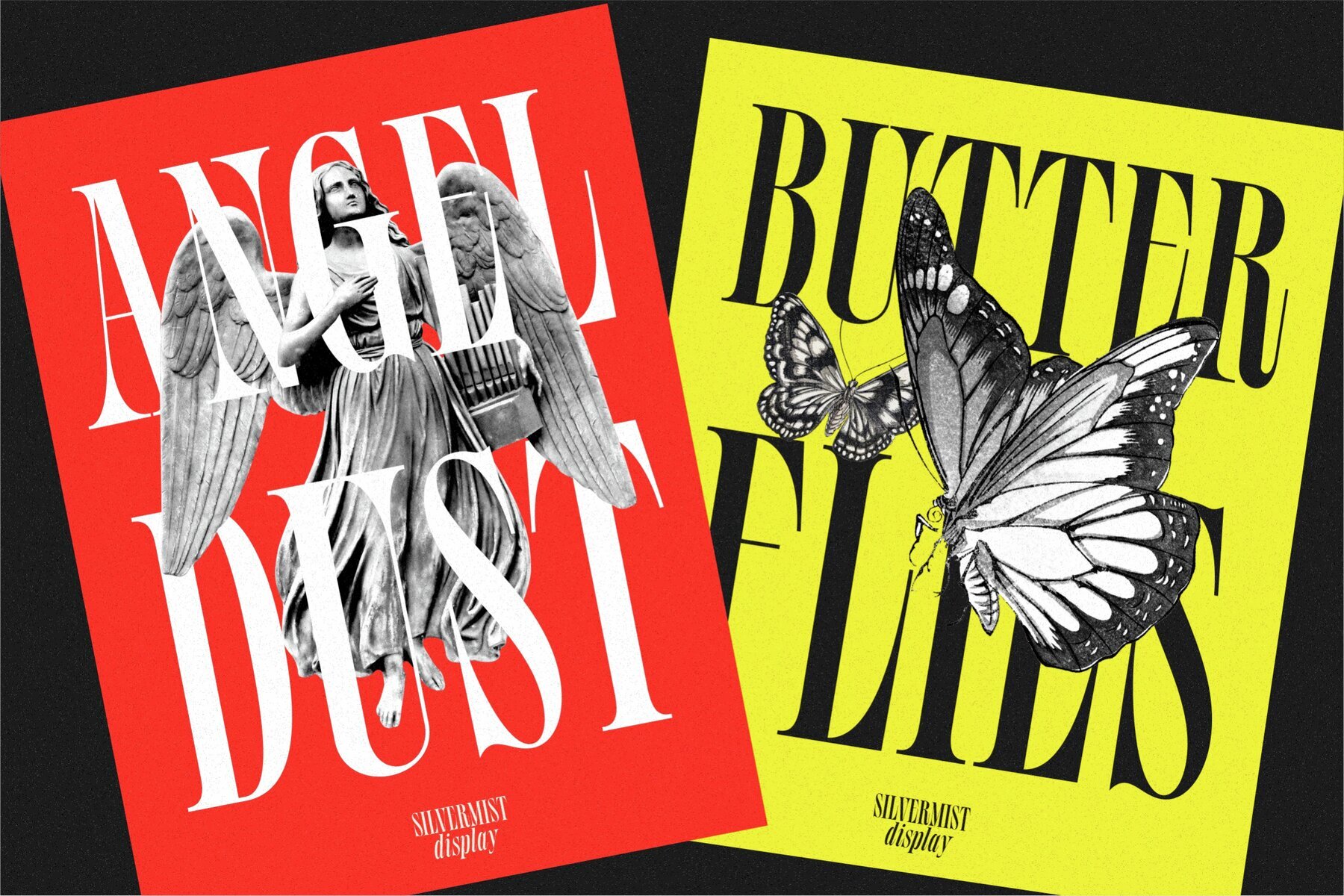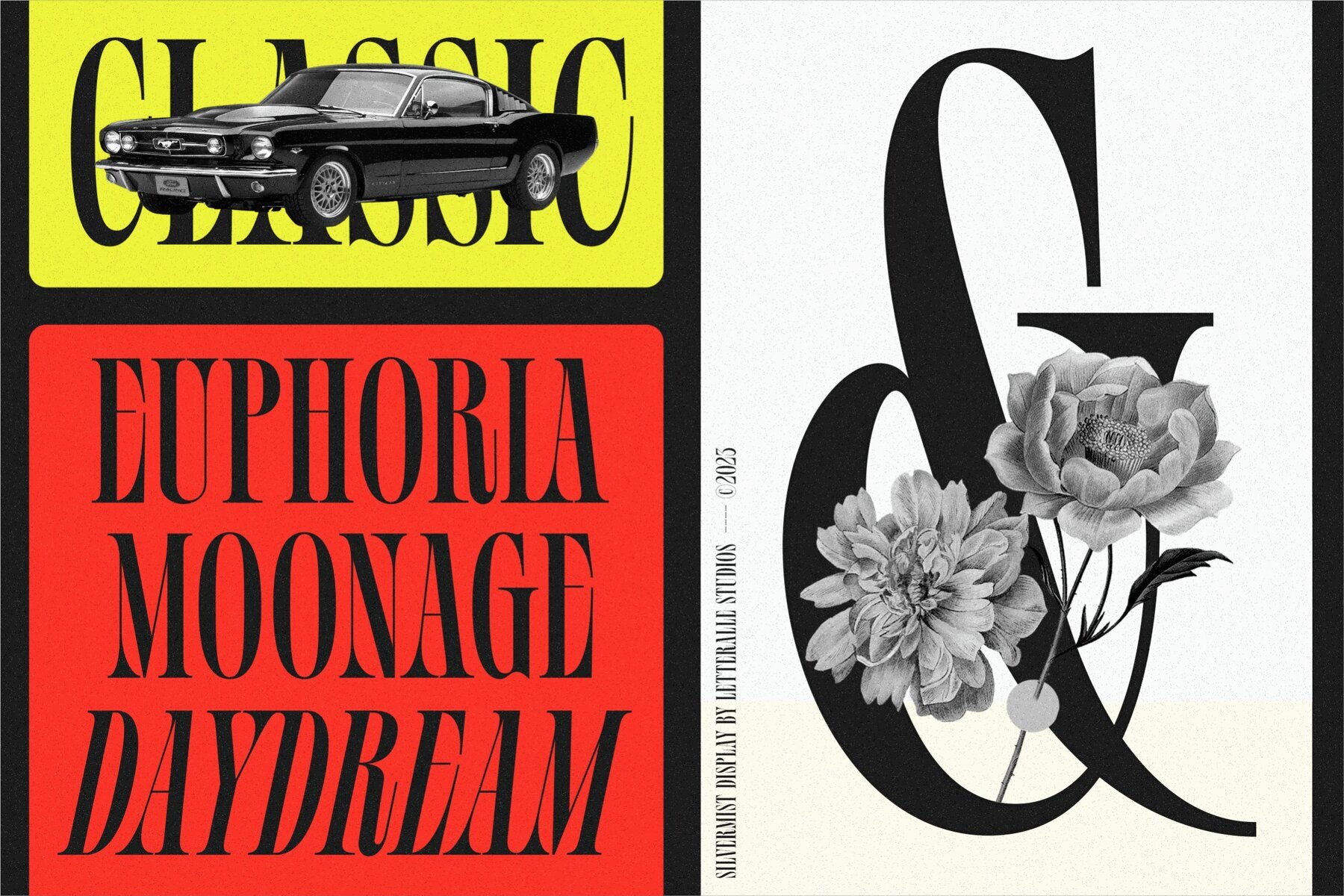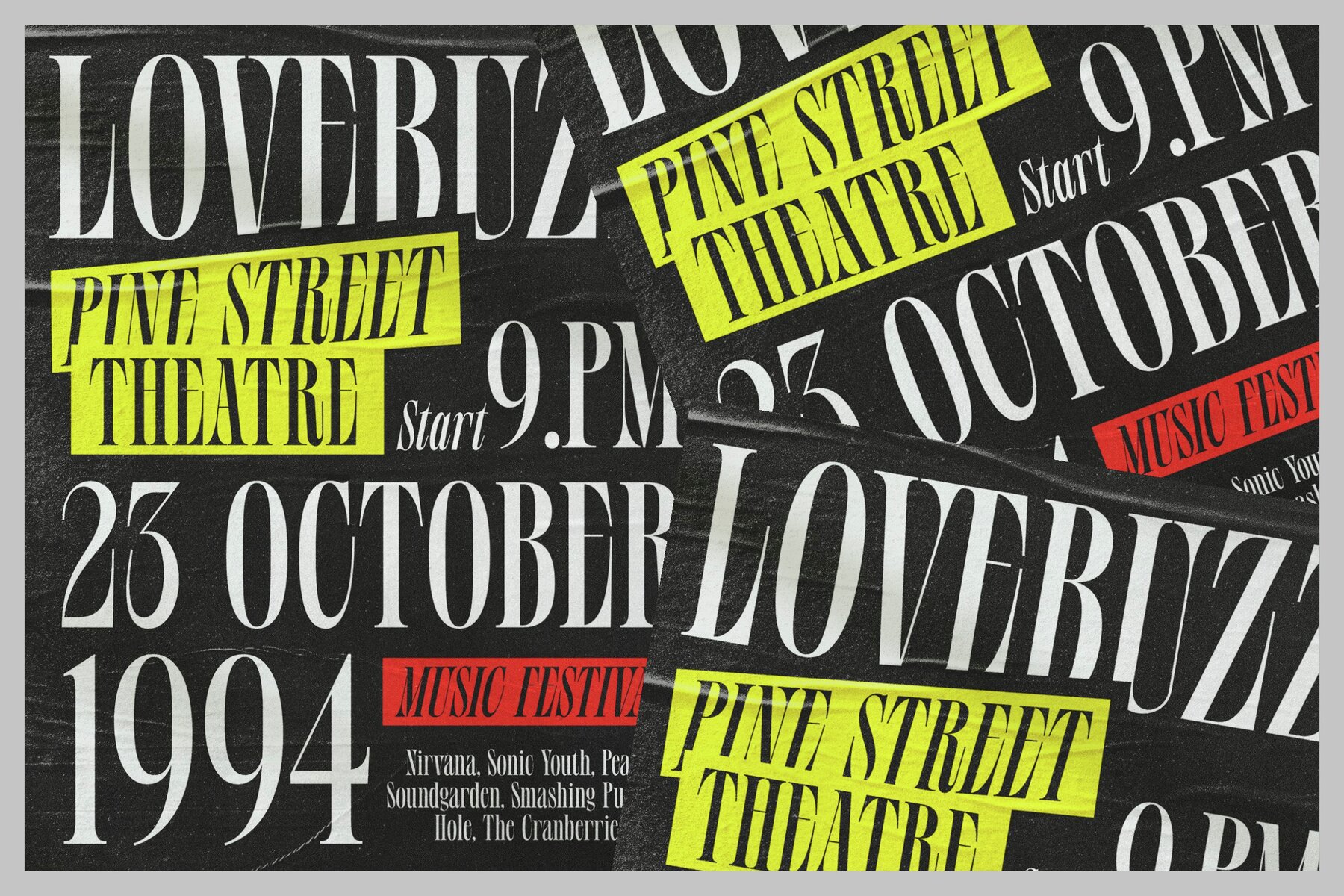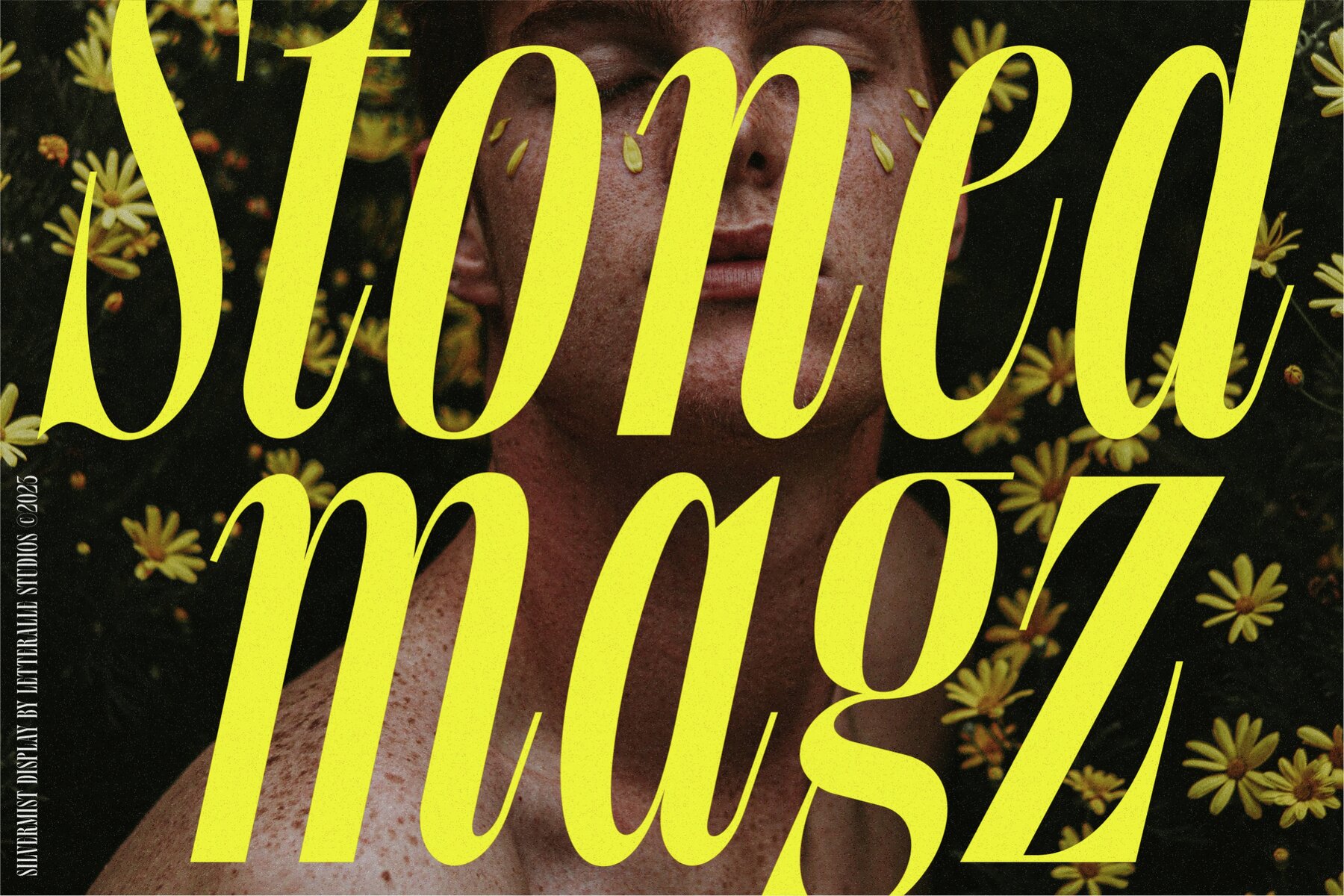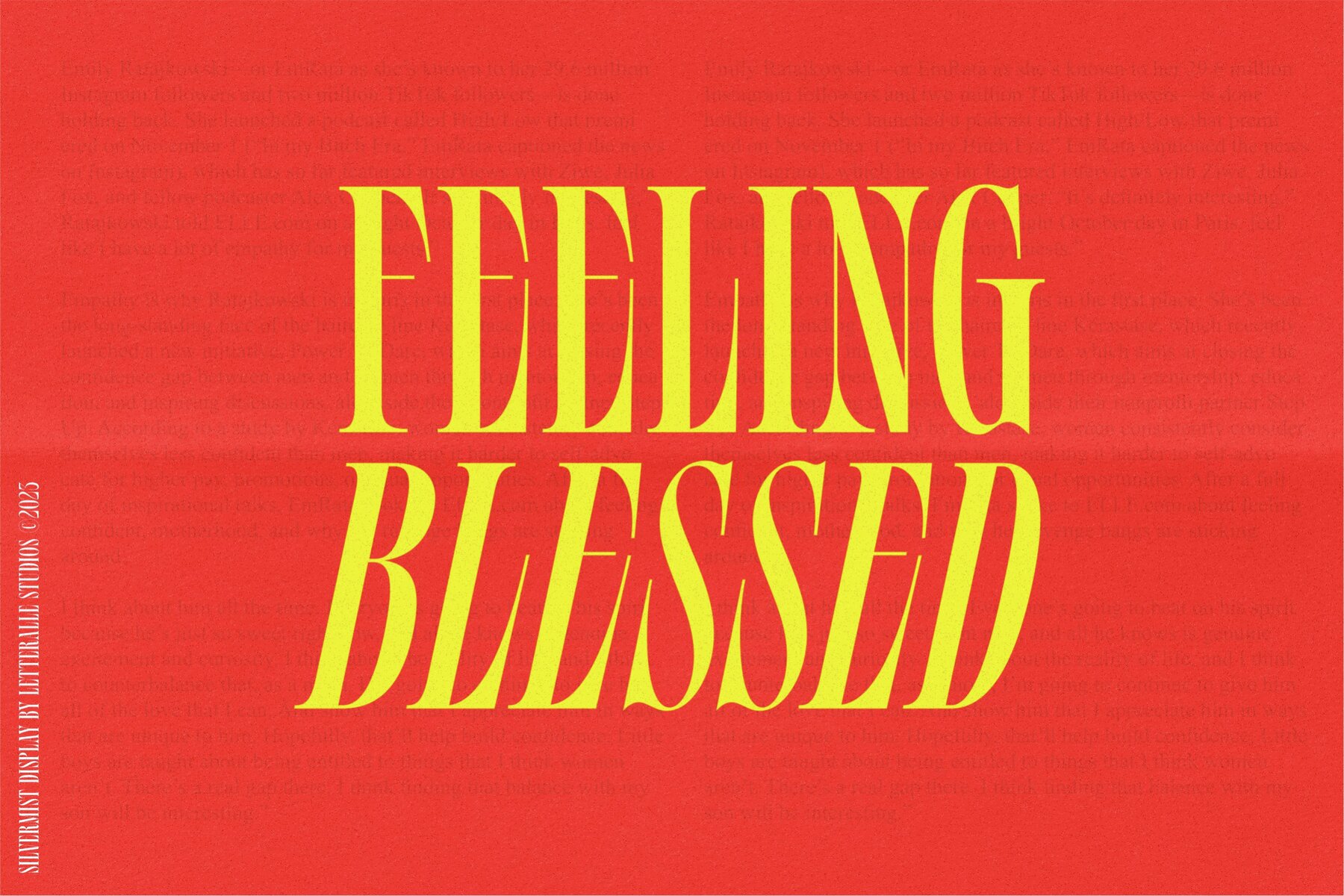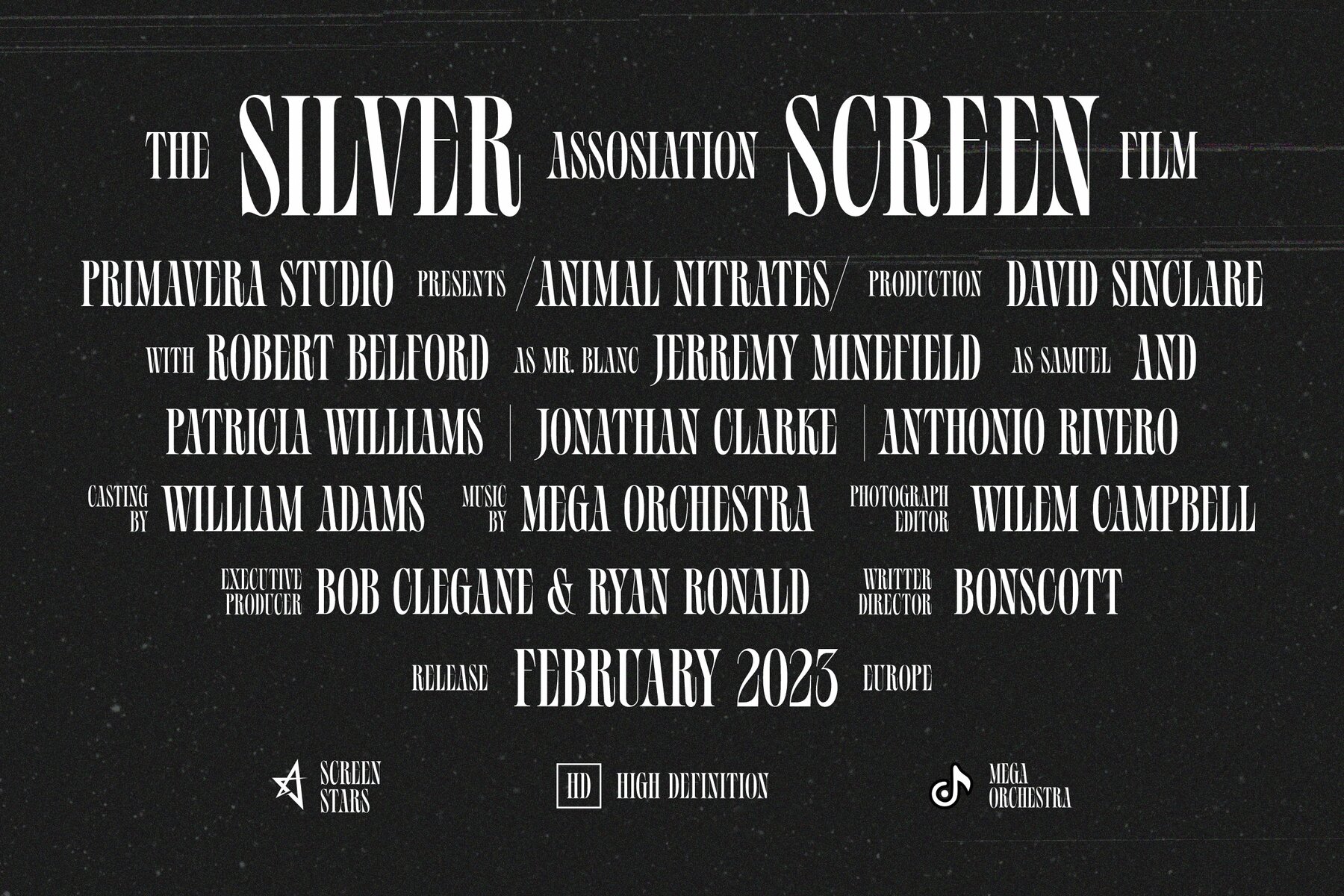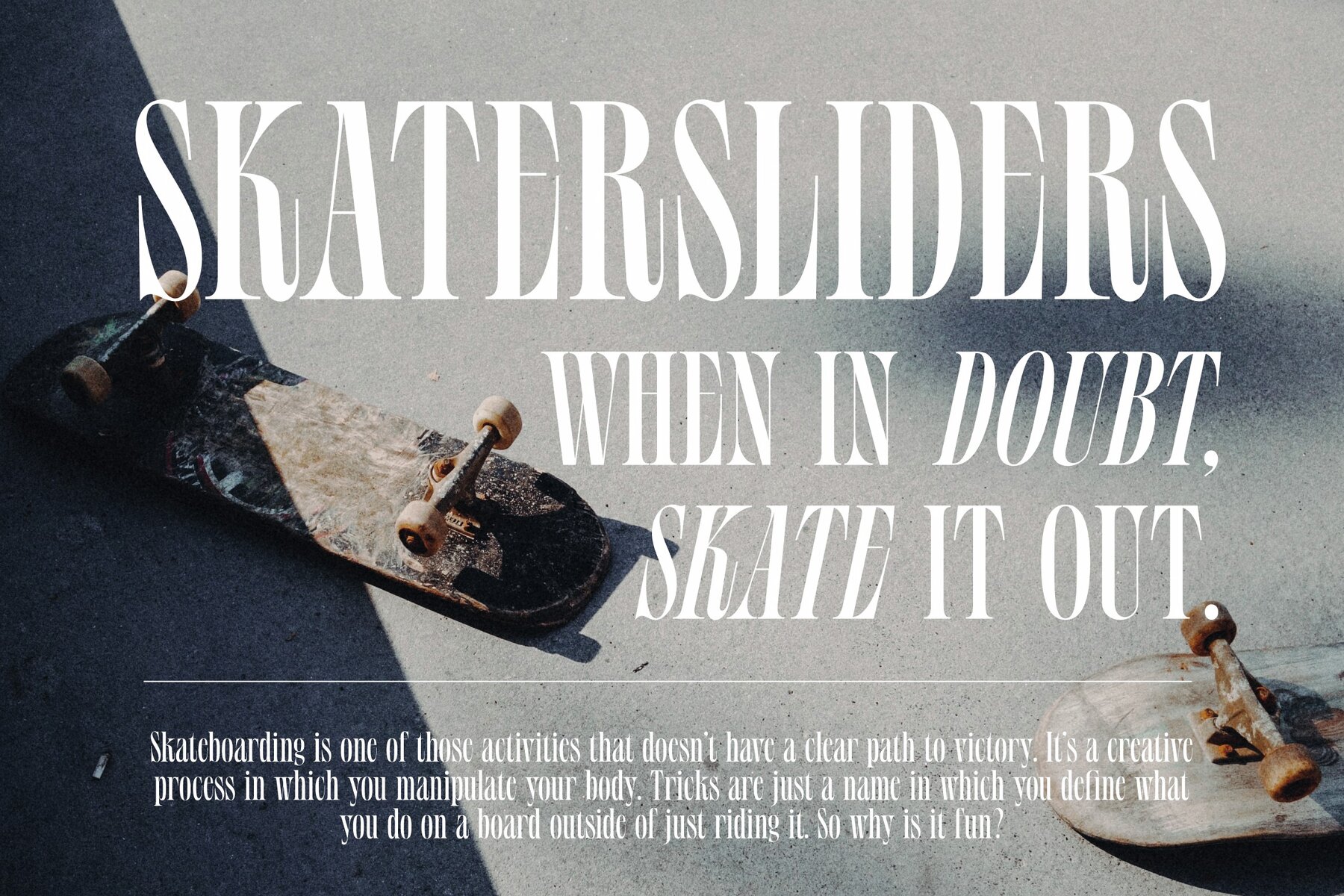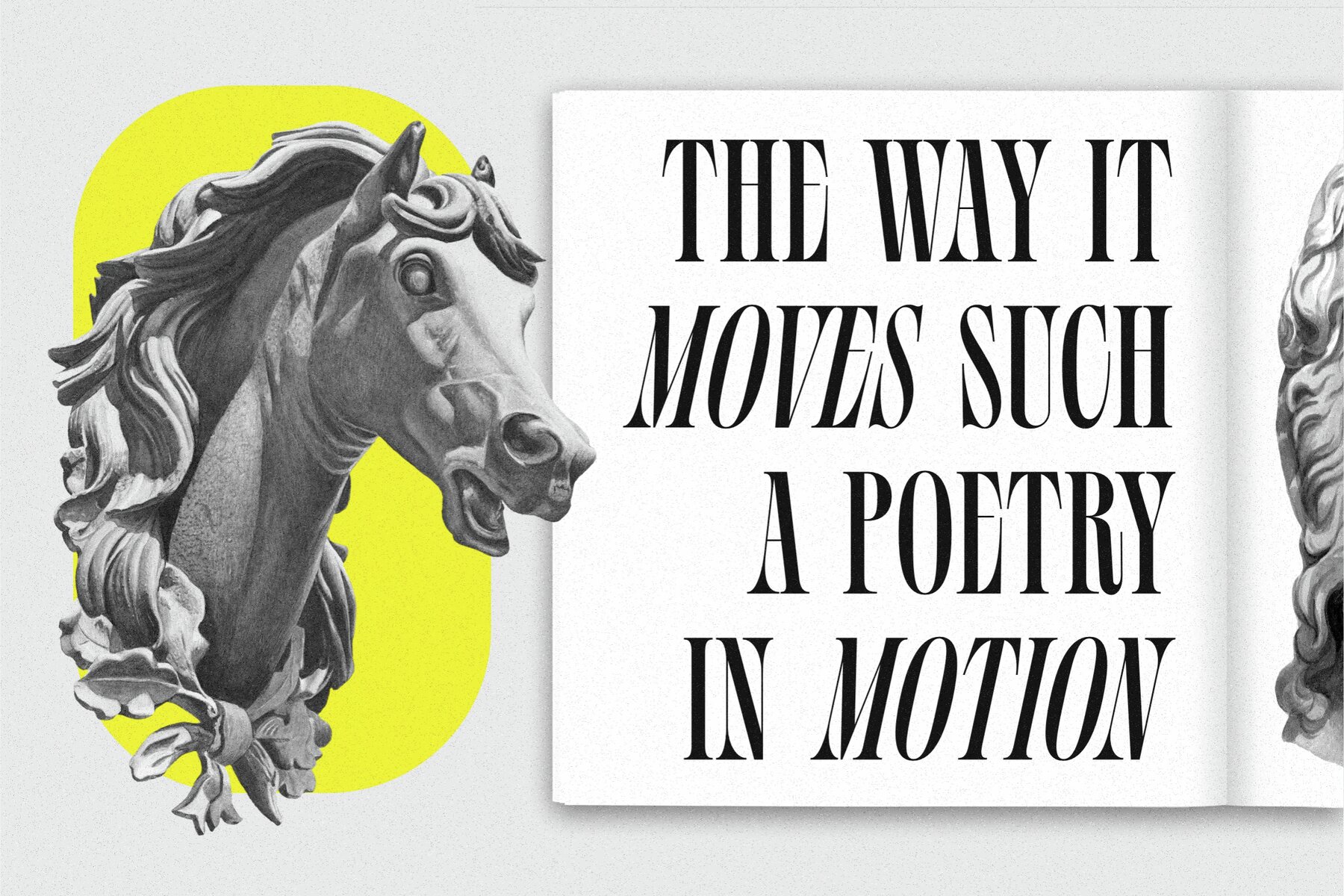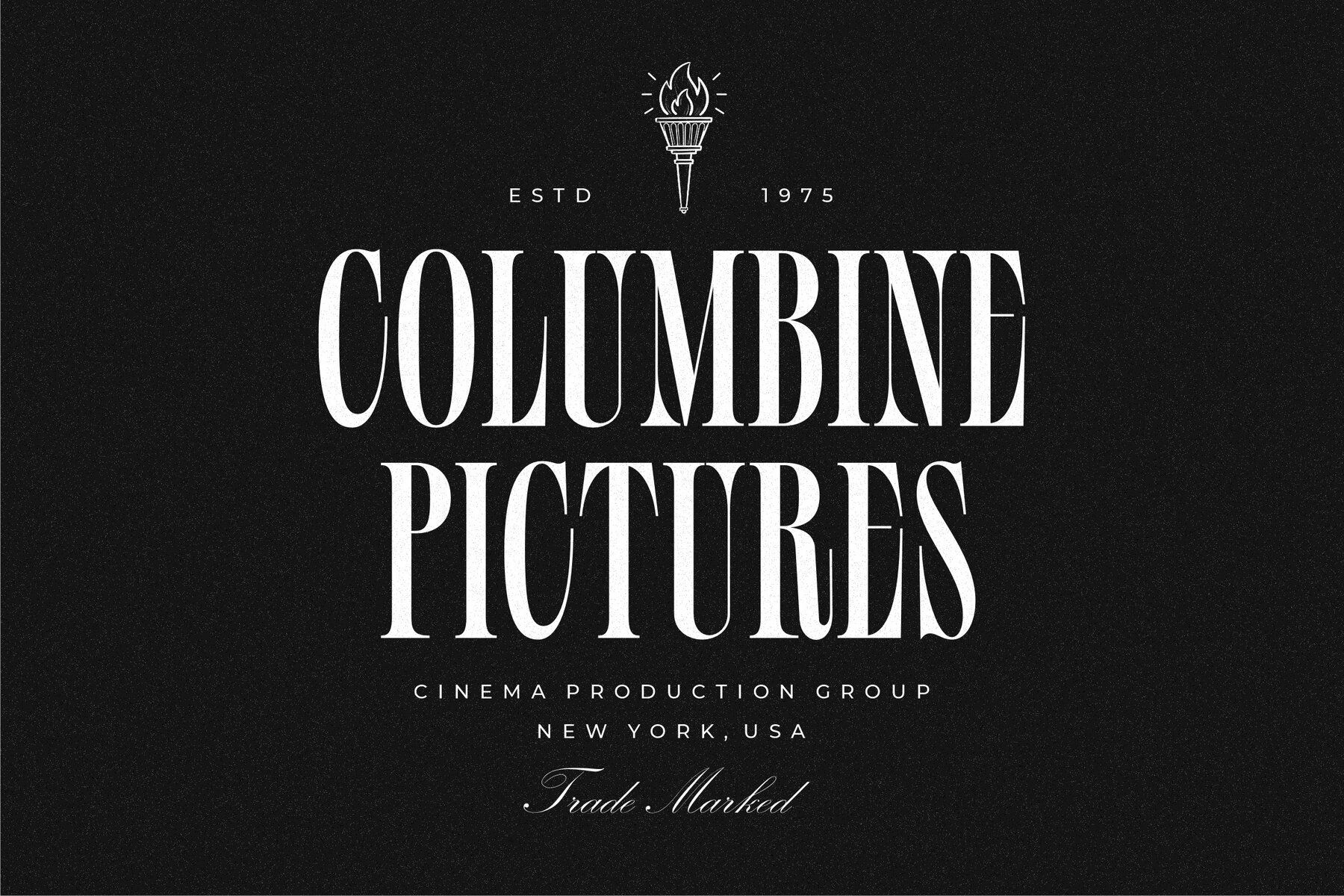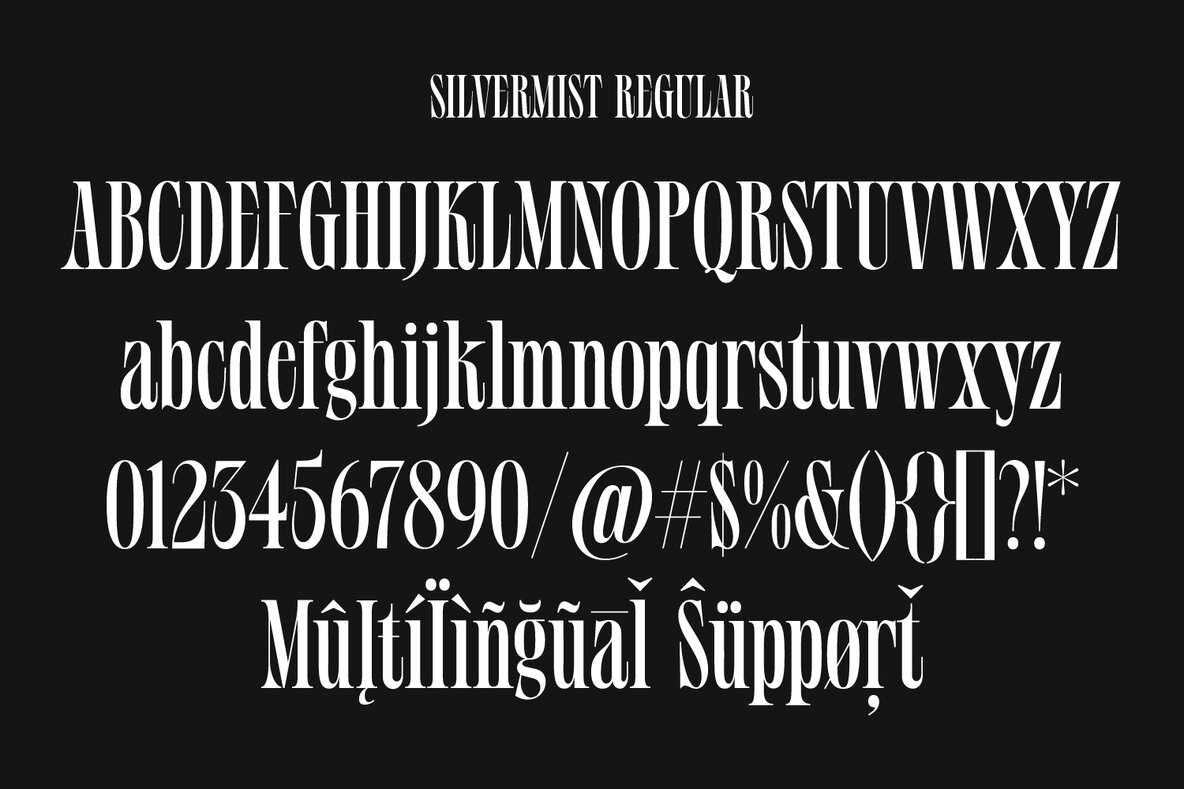
Silvermist Font
Silvermist Regular
Silvermist Italic
Silvermist is a high-contrast serif display font that exudes elegance and sophistication. With its bold yet refined letterforms, this font is perfect for luxury branding, fashion editorials, and chic headline designs. Utilize Silvermist to impart a timeless and polished look to any high-end project. Features:
- Numeral & Punctuation
- Multilingual Accents